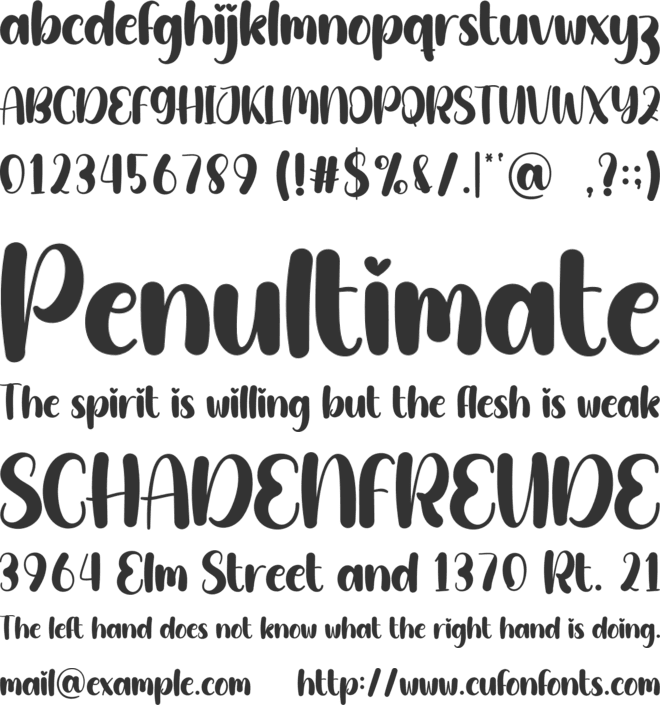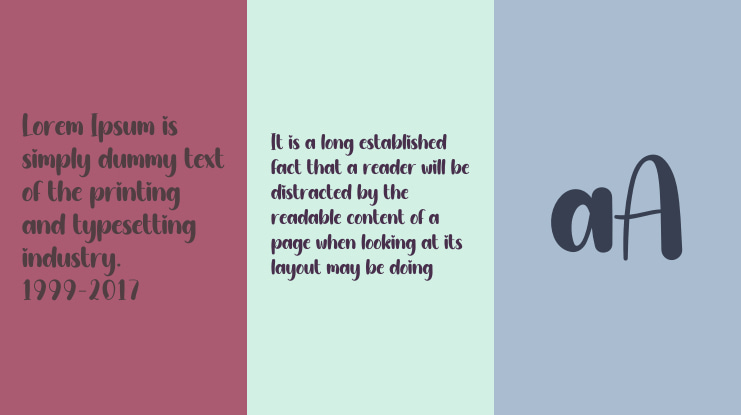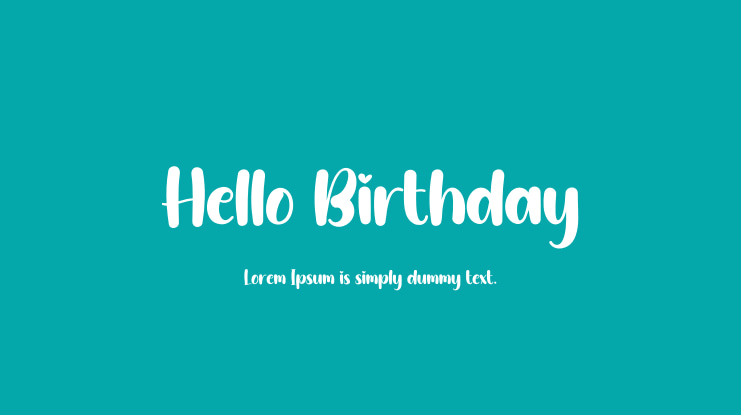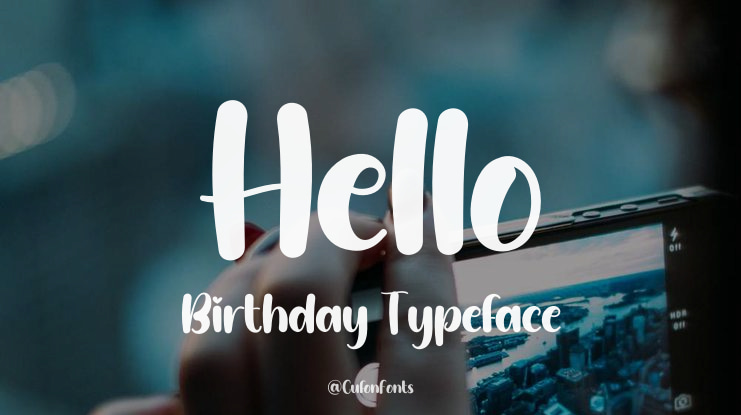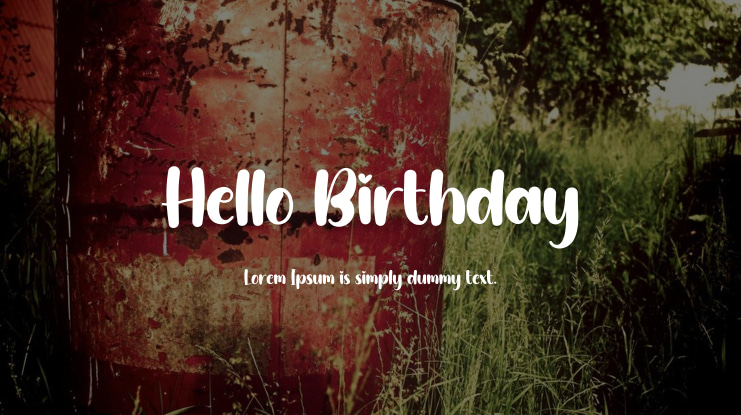
Hello Birthday Font
The latest styled letters are perfect for a variety of applications, including:
- Wall displays - Wedding invitations - Social media post logos - Advertisements - Product packaging - Product designs - Labels - Photography - Watermarks - Invitations - Stationery - Any project that requires sophisticated handwriting